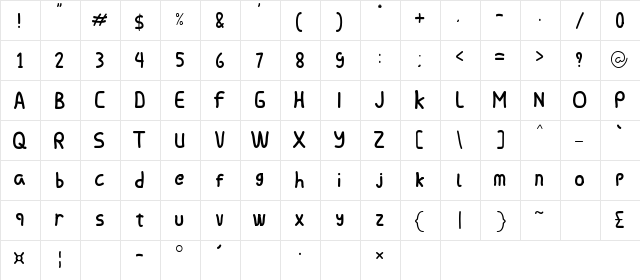
Chorovalent Deputy Regular
Design Context for Chorovalent Deputy Typeface
Chorovalent Deputy takes a measured approach to typography — its balanced proportions and neutral character make it a reliable workhorse for both digital and print work.